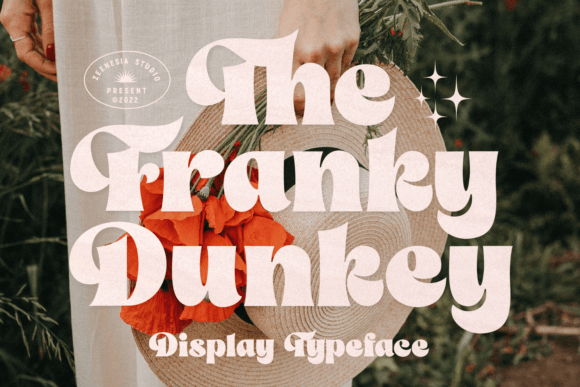
Welcome to the realm of typography, where letters dance and words ignite imagination. Allow us to introduce you to The Franky Dunkey Font, a display font that embodies boldness and charm.
Crafted by the skilled hands of zeenesia, The Franky Dunkey Font is a symphony of strong characters and soft features. Its modern yet classic design exudes elegance and sophistication, with clear and bold letterforms that command attention.
Transport yourself to a world of endless creative possibilities with The Franky Dunkey Font. Whether you're designing editorial projects, creating logos that leave a lasting impression, developing captivating web fonts, or embarking on clothing branding endeavors, this font is your trusty companion.
Imagine your product packaging adorned with The Franky Dunkey Font, adding a touch of uniqueness and allure that sets your brand apart. Envision magazine headers that leap off the page, grabbing readers' attention and inviting them to delve into your captivating content.
The Franky Dunkey Font is not just a font; it's a versatile masterpiece that seamlessly adapts to any background image, transforming ordinary designs into captivating works of art. Its versatility knows no bounds, making it the perfect choice for designers seeking boundless creativity.
With The Franky Dunkey Font, you hold the key to unlocking a world of typographic wonders. Its versatility extends to large-scale applications, making it ideal for captivating headlines, posters that demand attention, and signage that commands presence.